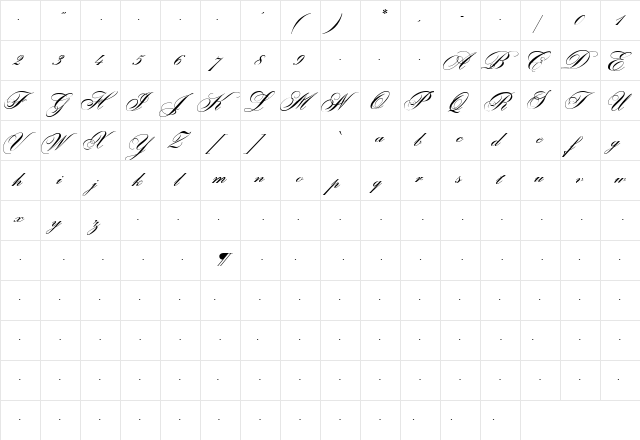
OfficeScriptDT ItalicBold Font Preview
Design Context for OfficeScriptDT Typeface
OfficeScriptDT brings a calligraphic fluidity to the page — its connecting strokes and expressive curves give it an unmistakably human quality. The heavy weight commands attention and anchors typographic hierarchies.